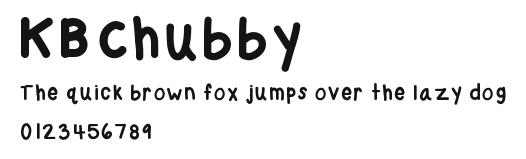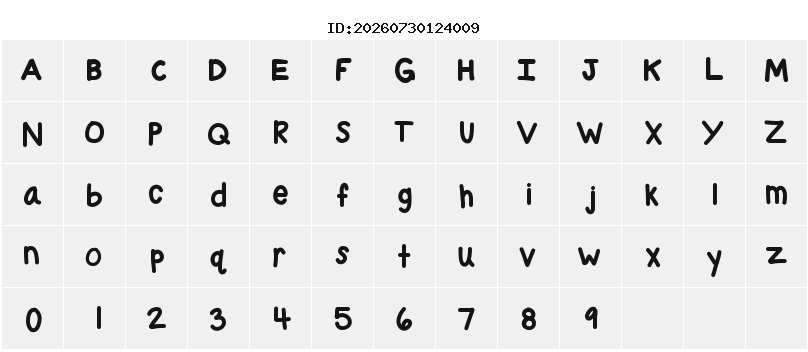
• Font Name: KBChubby
KBChubby.ttf is a modern, elegant sans-serif font designed for ultimate readability and visual harmony. Perfect for branding, headlines, web design, and print materials.